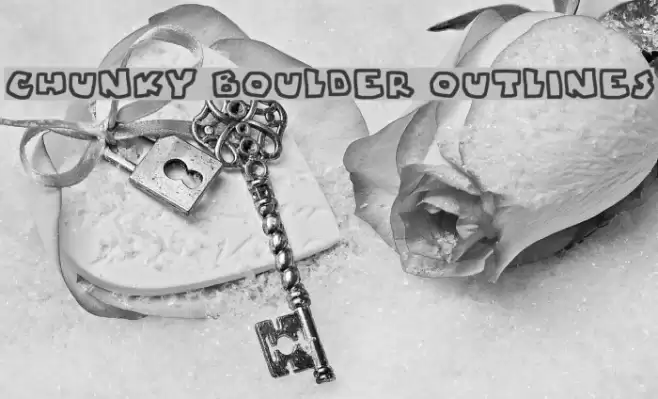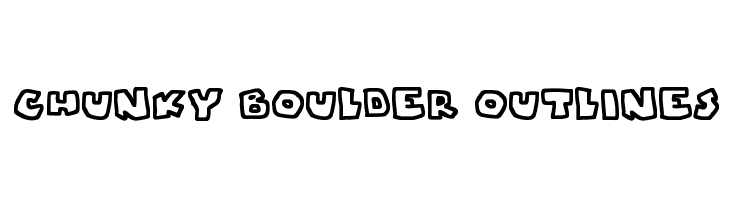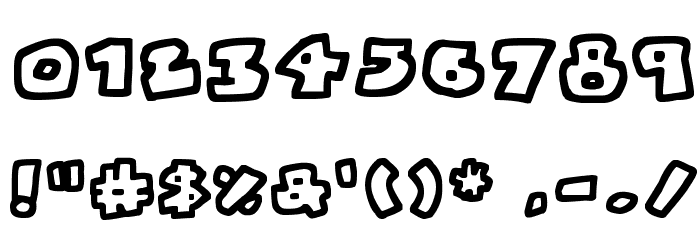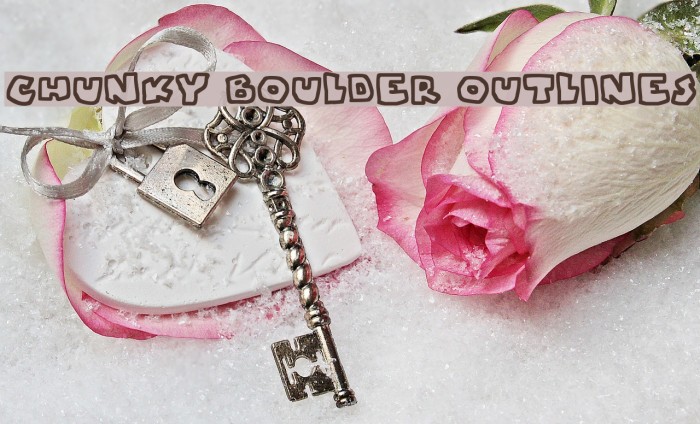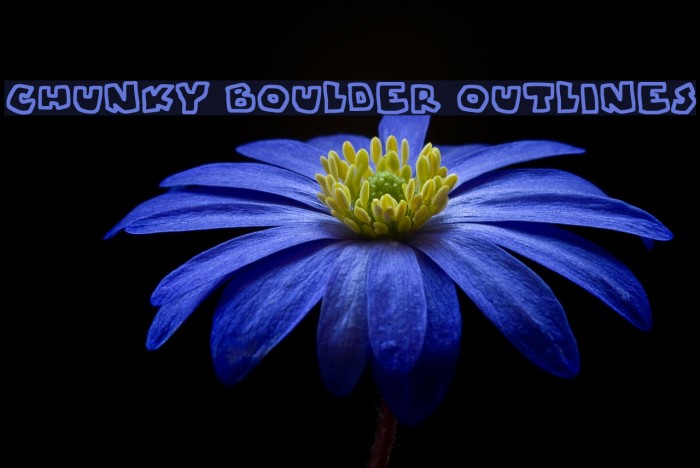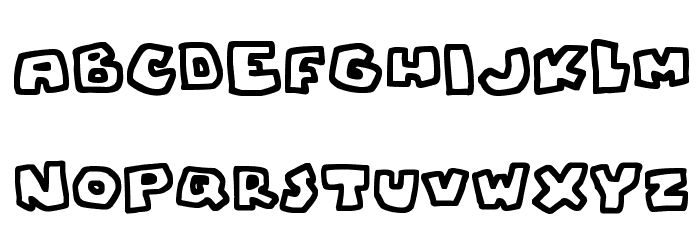
Chunky Boulder Outlines Font
Chunky Boulder Outlines Description
This font features bold, playful outlines that give each character a chunky, boulder-like appearance. The letters are uppercase and lowercase, with numbers and a variety of special characters included. Each character is outlined with a thick, uniform stroke, creating a sense of fun and whimsy. The style is reminiscent of hand-drawn or cartoonish designs, making it ideal for projects that require a lighthearted and informal touch. The characters are evenly spaced, ensuring readability while maintaining their quirky aesthetic. The font's unique style is perfect for creative projects where a bold statement is needed.
A bold, playful font with chunky outlines and a whimsical, cartoonish style from Cartoon fonts.
- Proposed Projects: Ideal for children's books, comic strips, playful branding, posters, and party invitations.
- Overall Style: Playful, Cartoonish, Fun